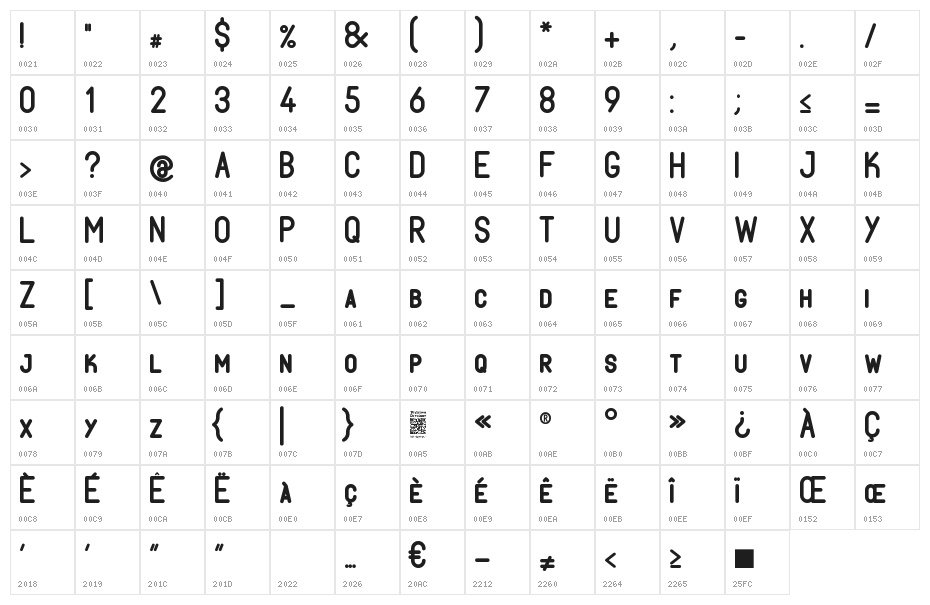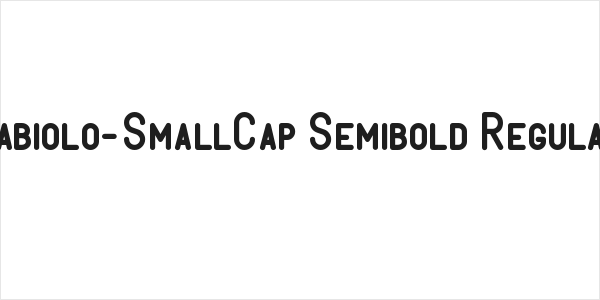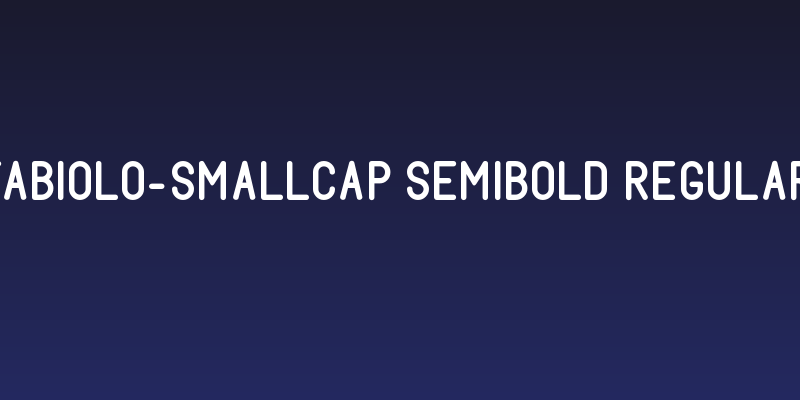
Fabiolo-SmallCap Semibold Regular Font
Fabiolo-SmallCap Semibold Regular Description
This font features a bold and modern design with rounded edges, giving it a friendly and approachable appearance. The uppercase letters are consistent in height, while the lowercase letters maintain a uniform baseline, enhancing readability. The numerals are clear and distinct, making them suitable for various applications. The special characters are well-integrated, maintaining the font's cohesive style. Its overall design is clean and versatile, making it ideal for both digital and print media.
| Use Case | Headlines, Logos, Advertising |
| Proposed Projects | Ideal for branding, advertising, posters, and digital media where a modern and approachable look is desired. |